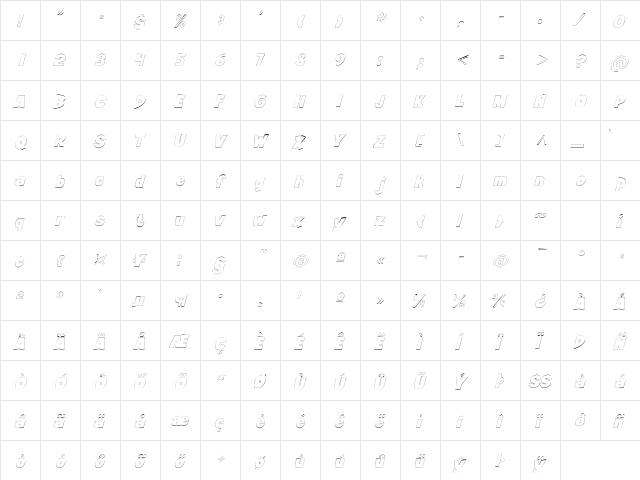
JiffyOutline Italic
Design Context for JiffyOutline Typeface
JiffyOutline is built around its visual character rather than neutral utility — its distinctive forms are designed to make an impression at display sizes. The slanted form adds forward momentum and visual energy.
Font Pairing: Pair with a clean neutral sans-serif for body copy to let JiffyOutline's character lead without overwhelming the composition.
Pro Tip: Treat JiffyOutline as the centrepiece of your typographic hierarchy. One strong heading set in a decorative face can carry an entire layout.